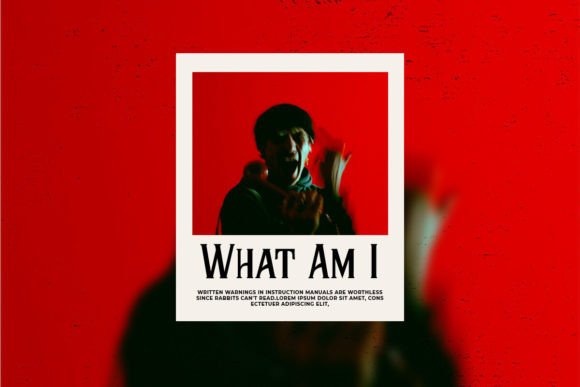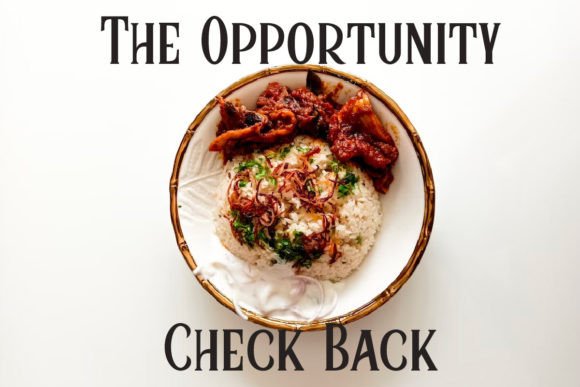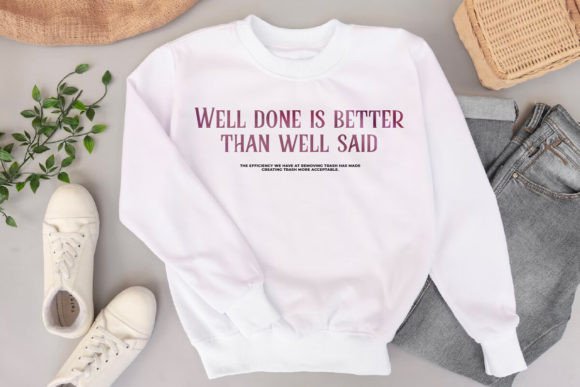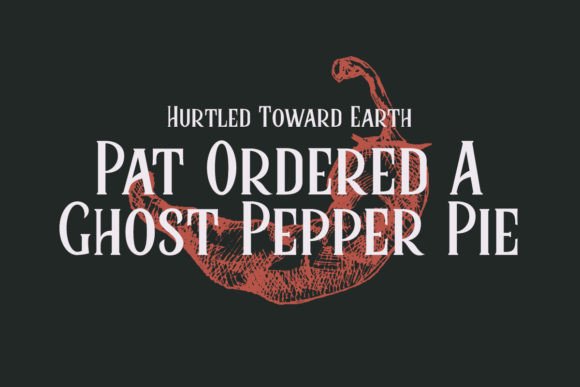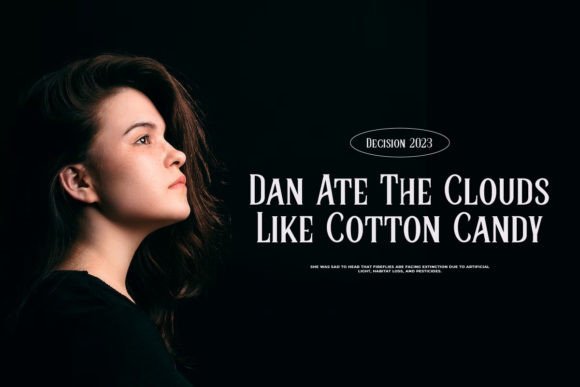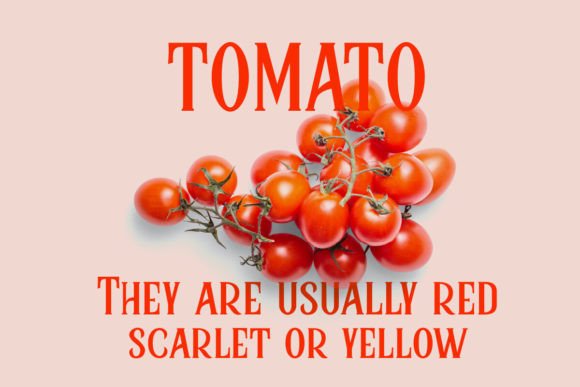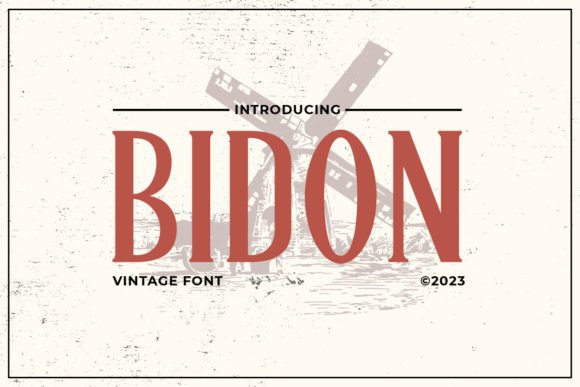
Discover the Wild West Charm with Bidon Font
Are you looking for a font that embodies the spirit of the Wild West? Look no further than Bidon, a classic serif font that takes you on a journey to the heart of the American frontier. With its timeless and rugged design, Bidon is the perfect choice for designers and crafters who want to add a touch of cowboy charm to their projects.
Cowboy Classic: The Embodiment of the Wild West
Bidon is the epitome of cowboy aesthetics, designed to evoke the spirit of the frontier. Its strong serifs and bold letterforms give it a rugged, no-nonsense appeal that’s perfect for projects that require a touch of the Old West. Whether you’re working on a logo, poster, or packaging design, Bidon is the ideal choice for creating a bold and adventurous look.
Versatile Serif: Readability and Style
Bidon is more than just a rugged font; it’s also a versatile serif typeface that pays homage to the cowboy era while providing readability and style. Its classic design ensures that it remains legible even at small sizes, making it perfect for body text, headings, and titles. Whether you’re creating a website, brochure, or business card, Bidon is a great choice for adding a touch of sophistication and rugged charm.
Timeless Appeal: A Journey to the Bygone Era
What sets Bidon apart is its ability to transport you to a bygone era. This font captures the essence of the Wild West and allows you to infuse your designs with a timeless and adventurous spirit. With Bidon, you can create designs that evoke the nostalgia of the American West, perfect for projects that require a touch of history and tradition.
Ideal for Cowboy Themes: Rodeos, Westerns, and More
Bidon is an ideal choice for projects related to cowboy themes, rodeos, westerns, and any creative work that aims to celebrate the rugged spirit of the Wild West. Whether you’re designing a logo for a rodeo event, creating a poster for a western movie, or crafting a brand identity for a cowboy-themed business, Bidon is the perfect font to use.
Design Inspiration: How to Use Bidon Font
Bidon is a versatile font that can be used in a variety of design projects. Here are some design inspiration ideas to get you started:
- Logos and Branding: Use Bidon to create a bold and adventurous logo for your business or project. Its strong serifs and bold letterforms make it perfect for creating a rugged and memorable brand identity.
- Posters and Flyers: Create eye-catching posters and flyers with Bidon. Its classic design and bold typography make it perfect for promoting events, products, or services.
- Packaging Design: Add a touch of cowboy charm to your packaging design with Bidon. Its rugged and adventurous spirit makes it perfect for packaging products that evoke the spirit of the Wild West.
- Web Design: Use Bidon to create a website that captures the essence of the American West. Its legibility and style make it perfect for body text, headings, and titles.
Bidon font is a classic serif typeface that embodies the spirit of the Wild West. With its timeless and rugged design, it’s perfect for designers and crafters who want to add a touch of cowboy charm to their projects. Whether you’re working on a logo, poster, packaging design, or website, Bidon is the ideal choice for creating a bold and adventurous look. So why not saddle up and give Bidon a try?